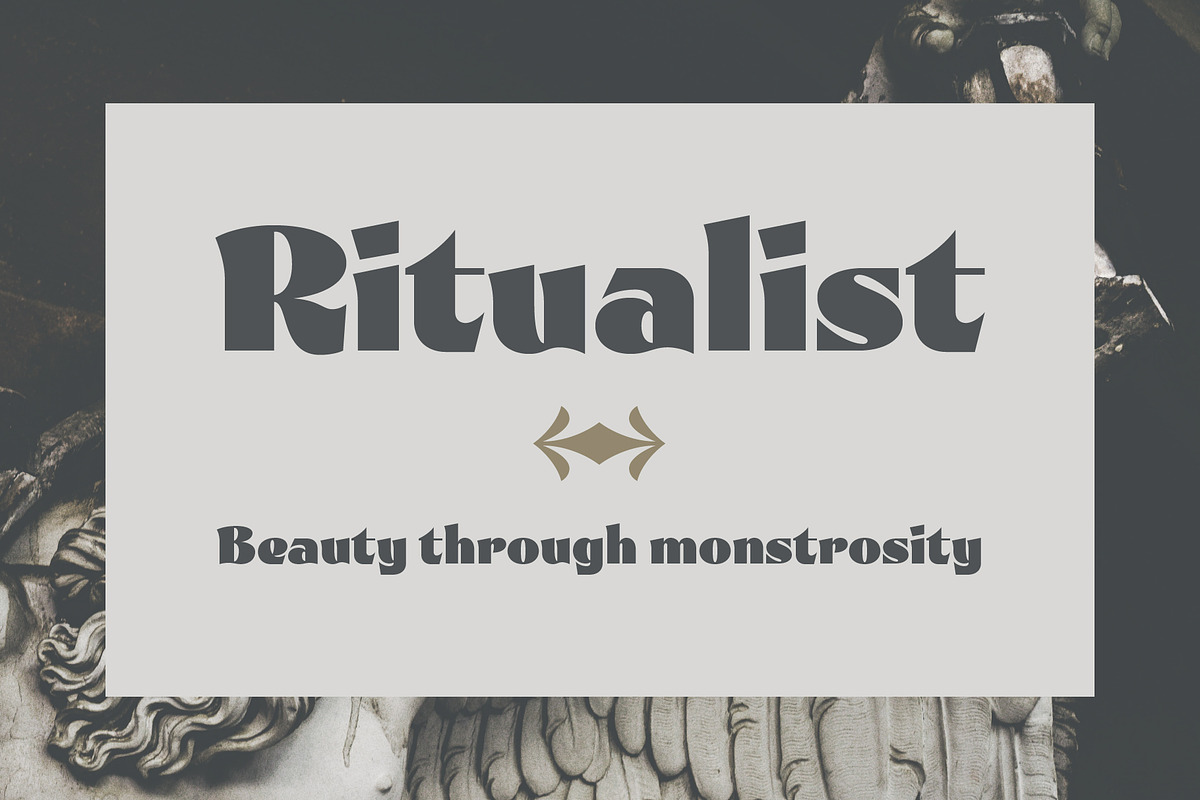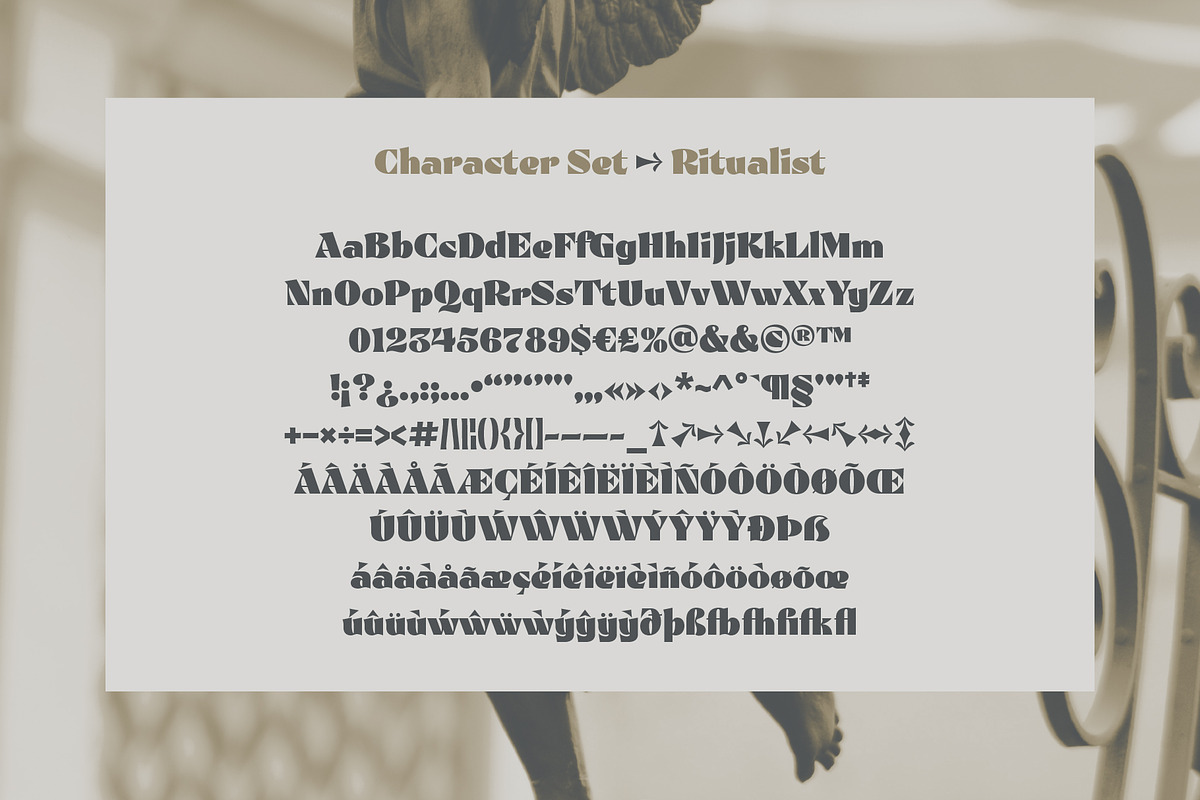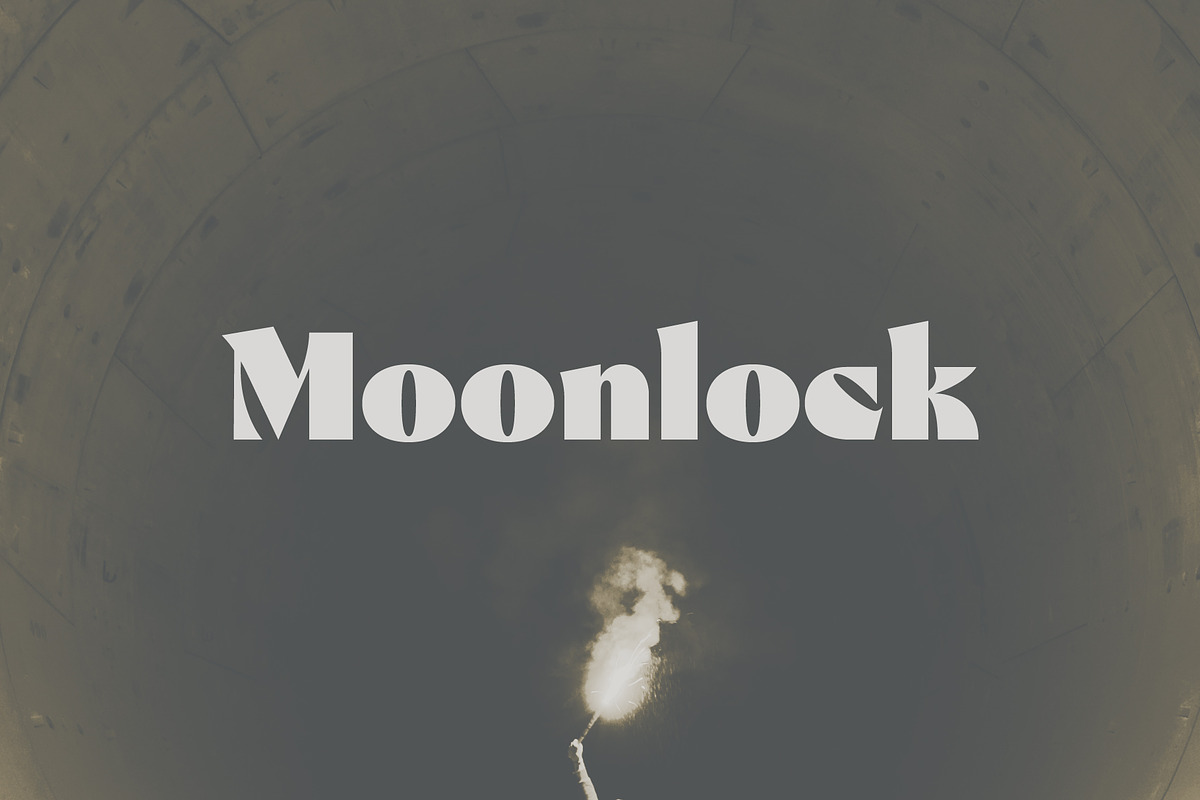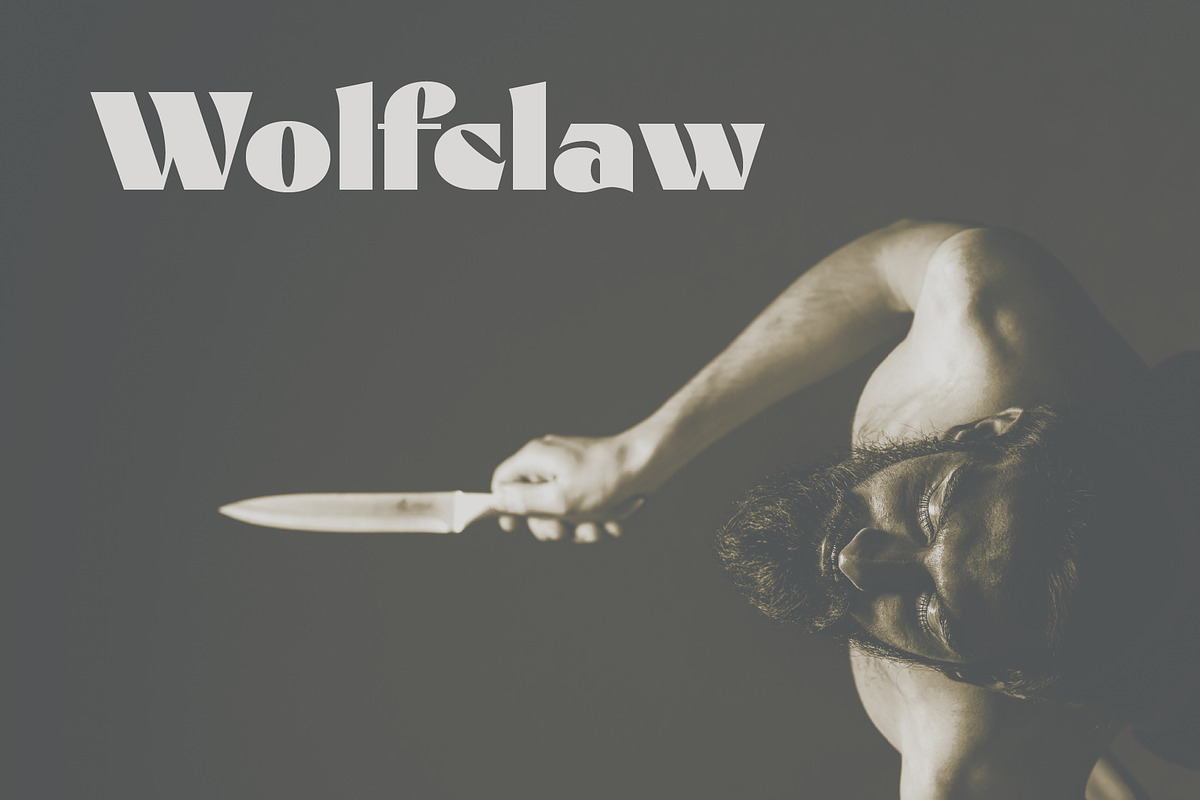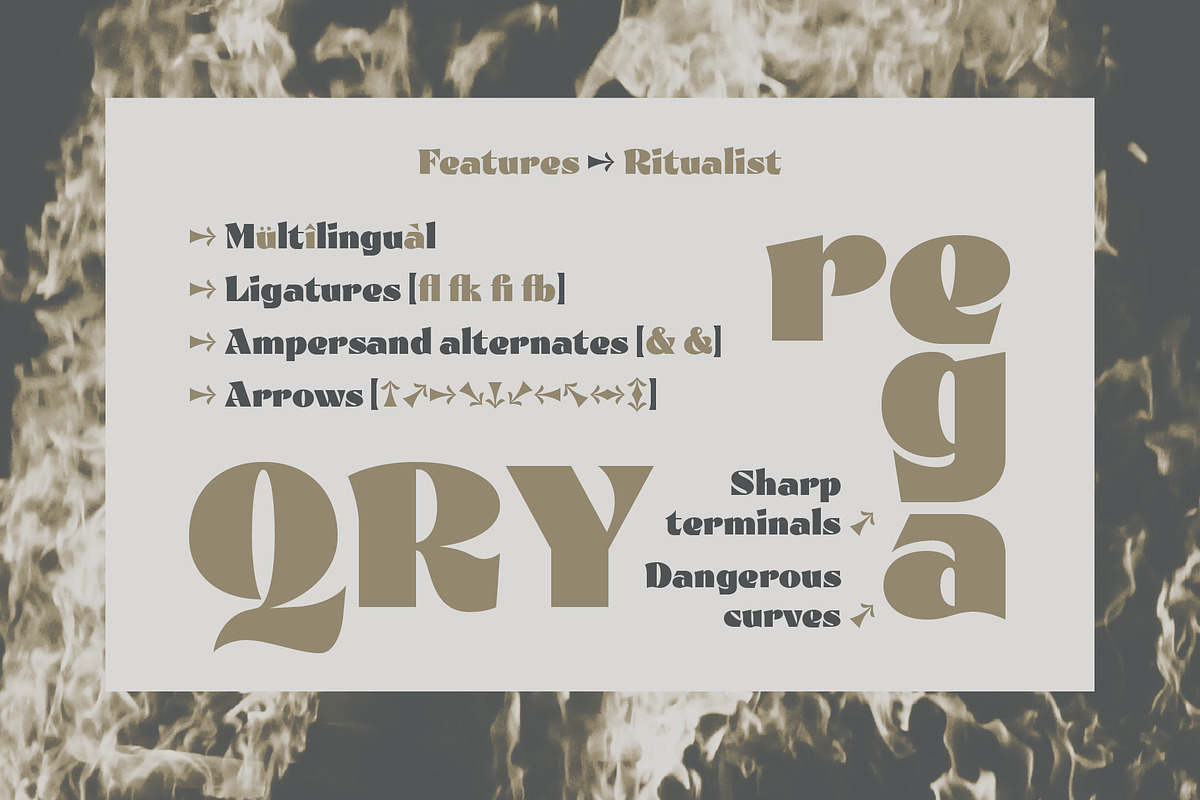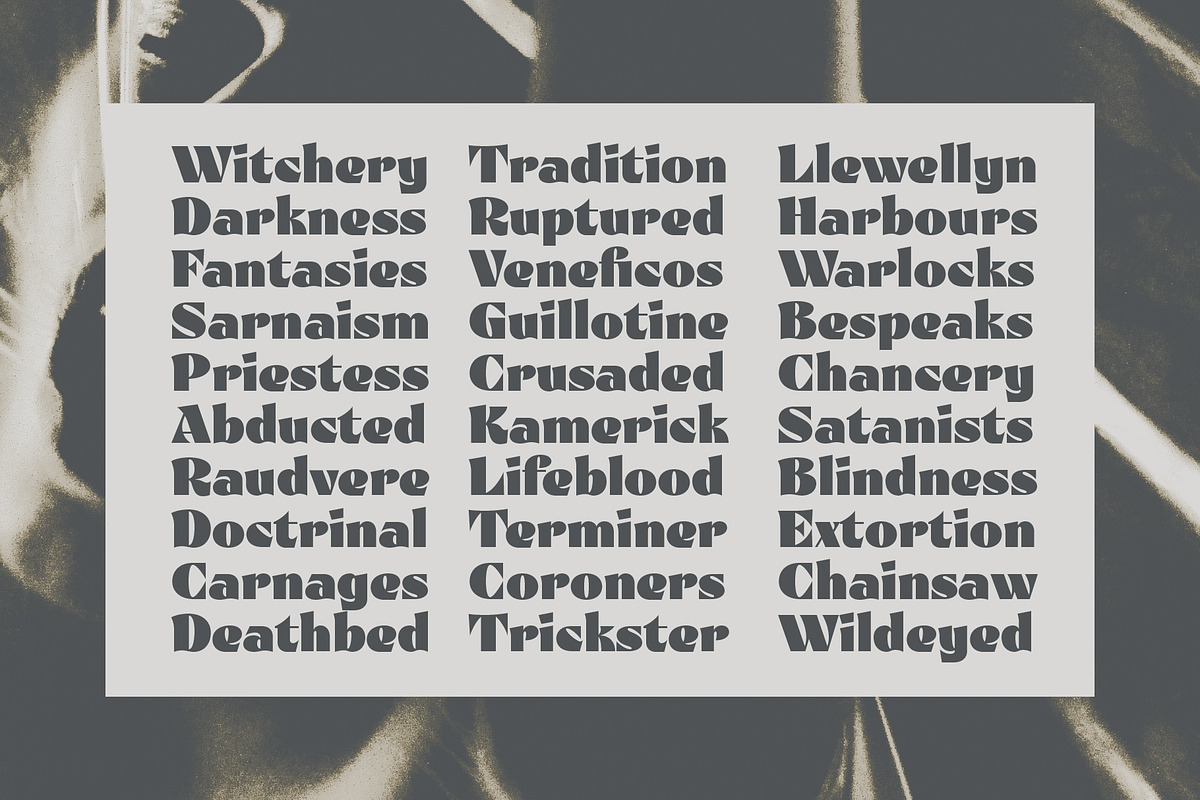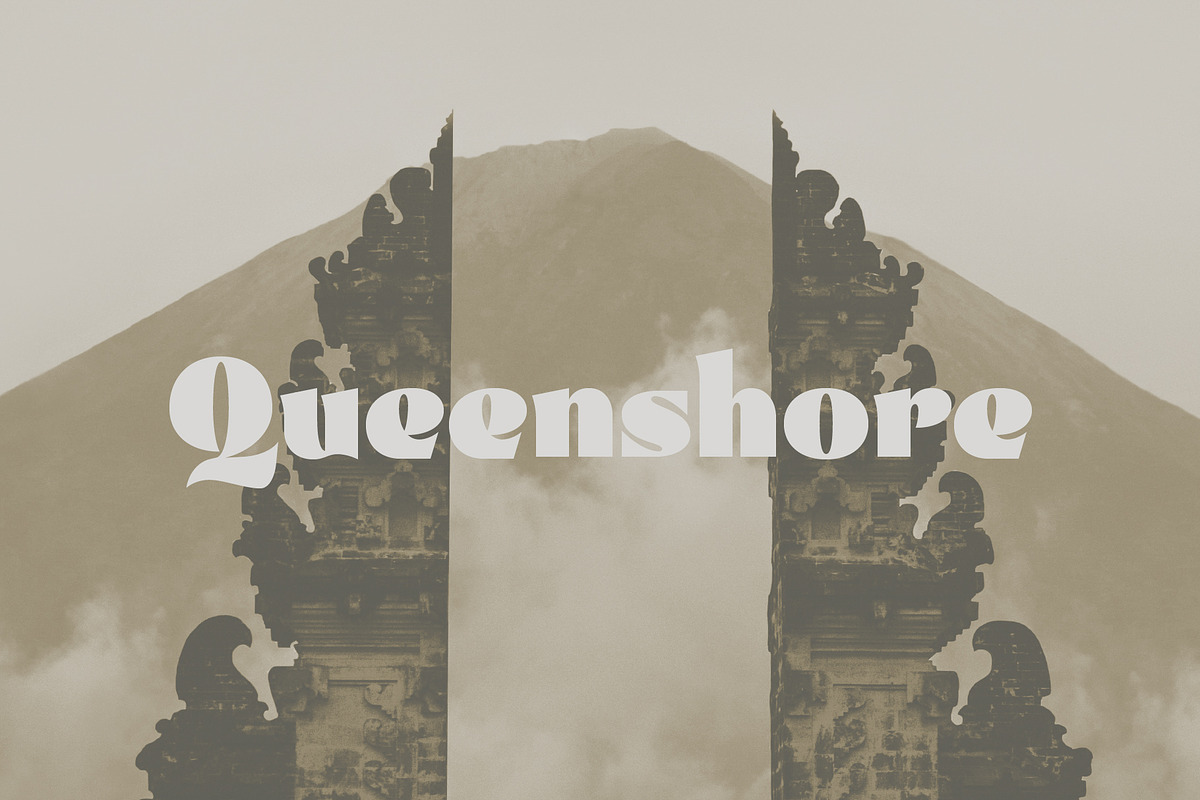
Ritualist
Dark, beautiful, cutting-edge.
🔪 🔪 🔪
Try not to stare.
Character set
- Latin alphabet [A–Z, a–z]
- Proportional lining figures [0–9]
- Punctuation, symbols, arrows
- Accented characters and additional letters for Western European language support
Language support
English, French, Spanish, Portuguese, German, Italian, Afrikaans, Breton, Catalan, Cornish, Danish, Finnish, Icelandic, Irish, Norwegian, Swedish and many more.
Future updates
- Light/Regular/Medium weights
- Expanded character set (more symbols, more language support)
- Non-Latin extensions (Greek, Cyrillic, ___?)